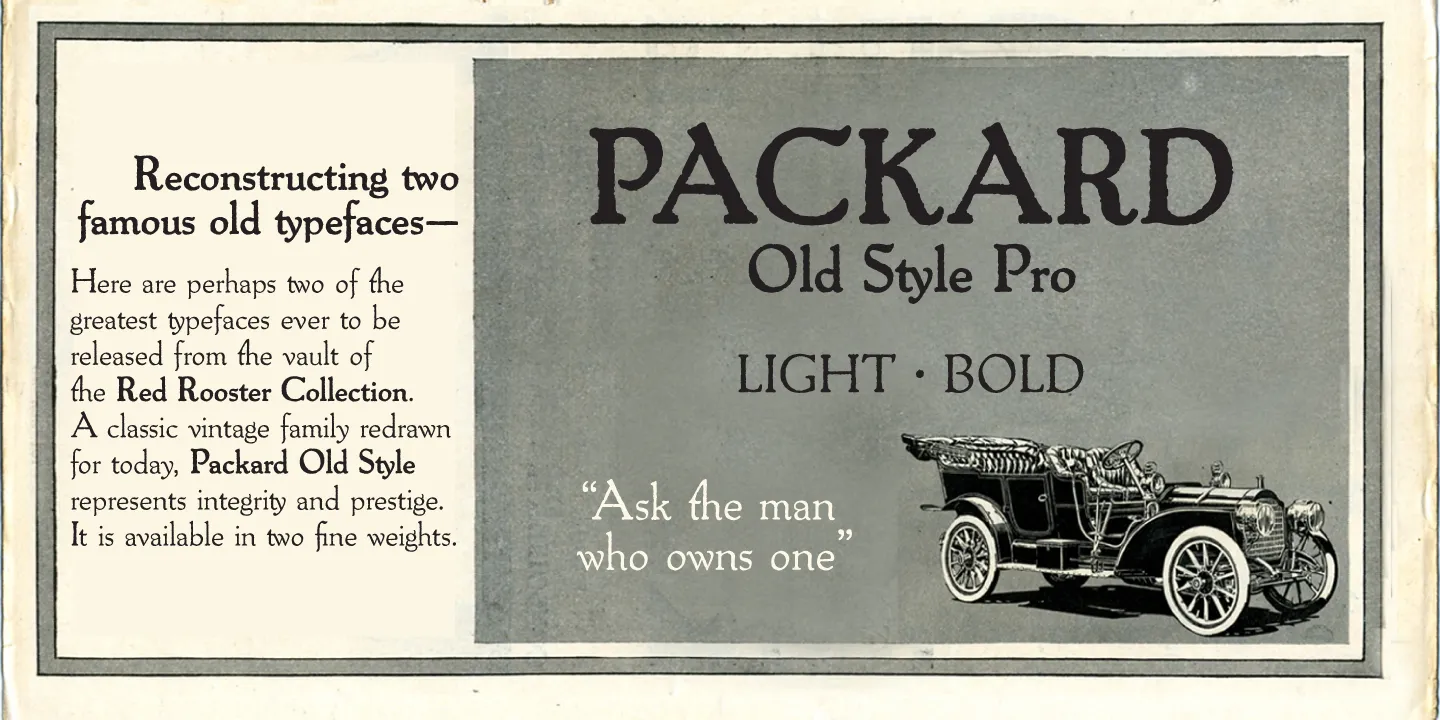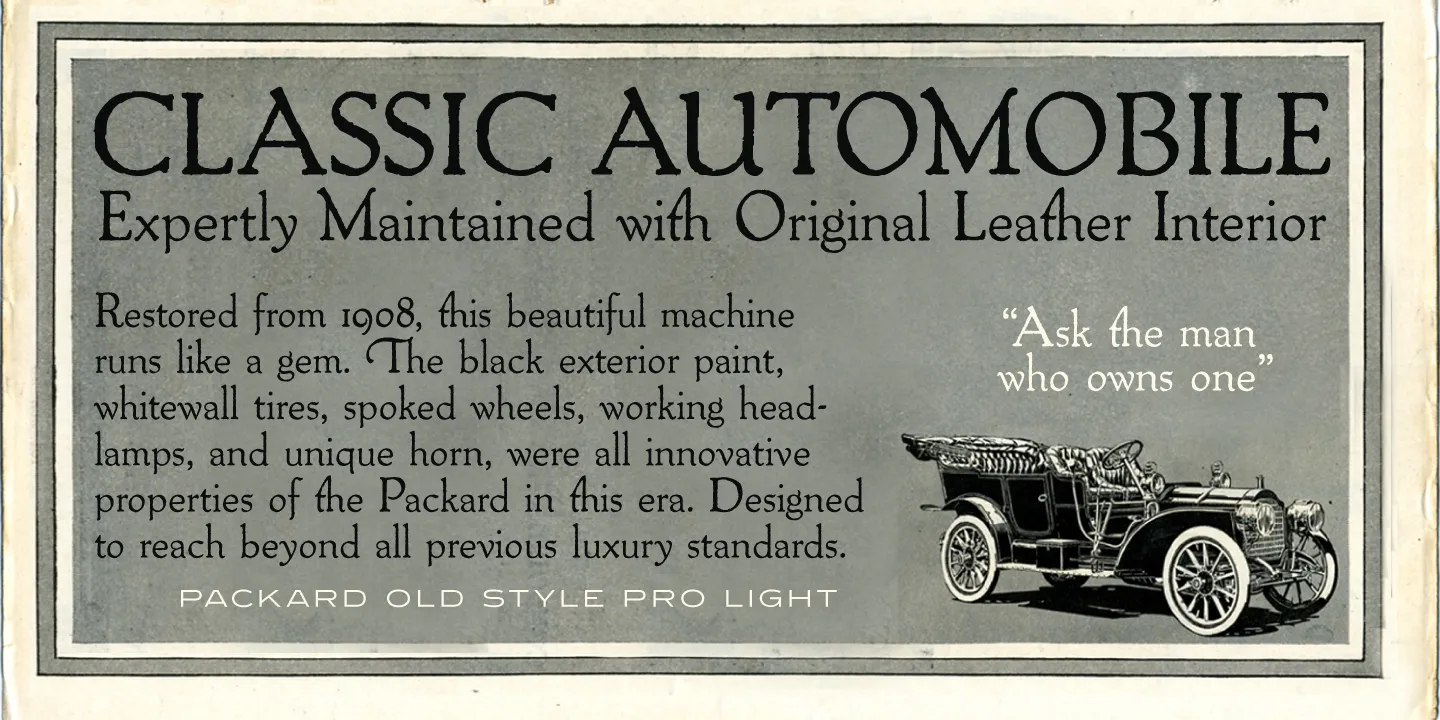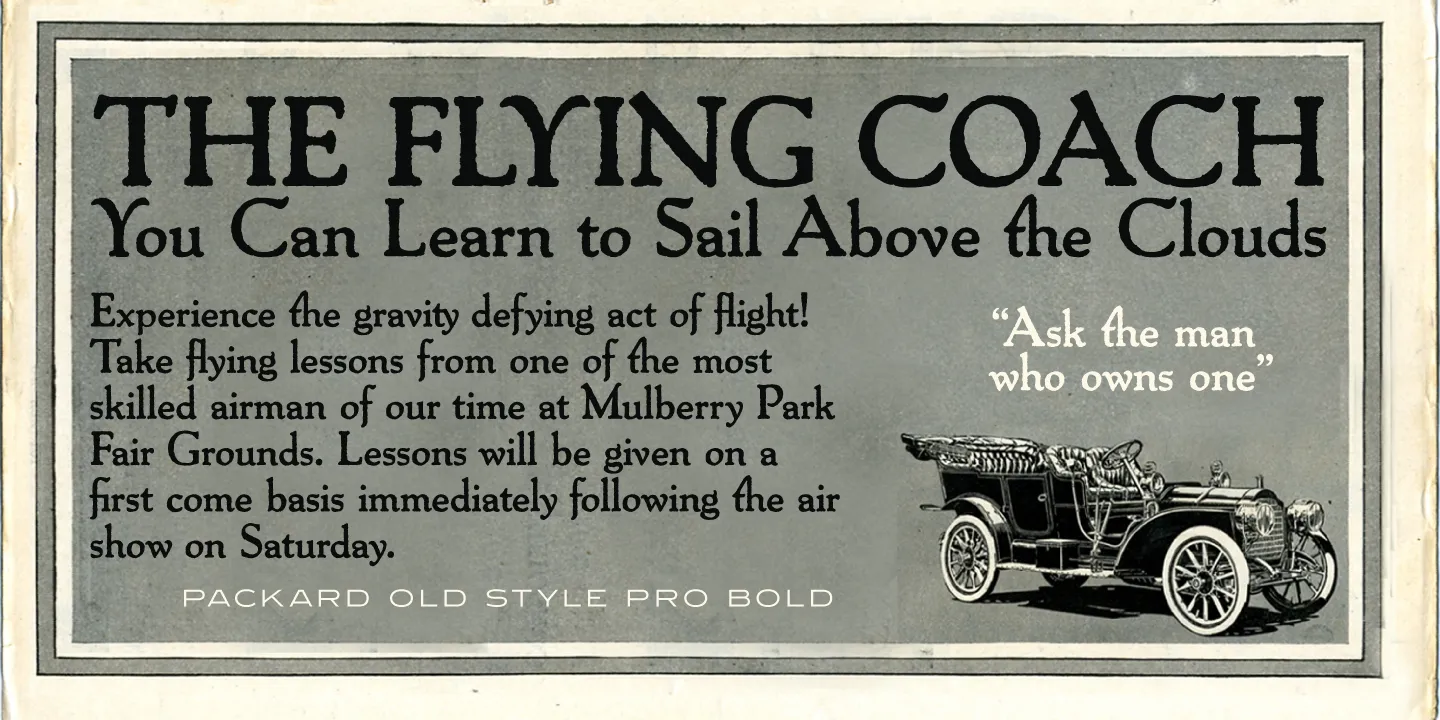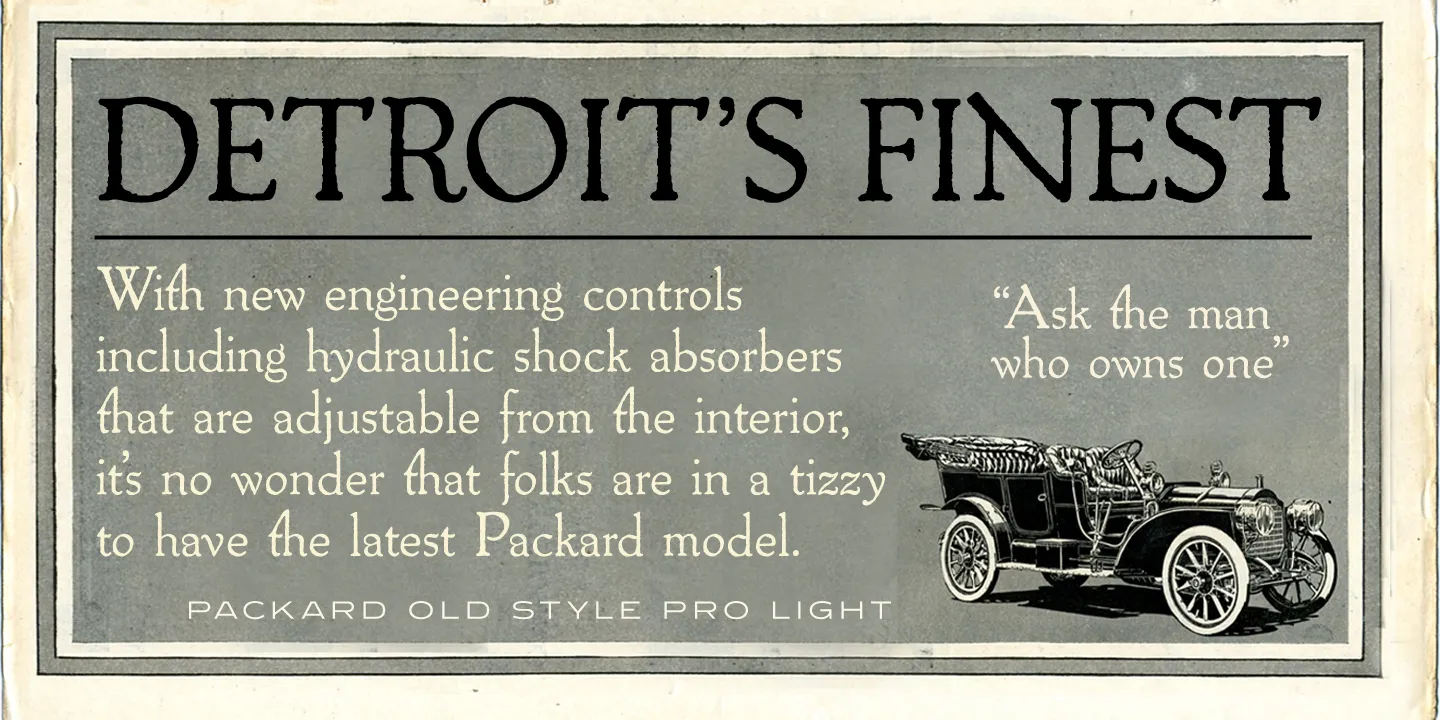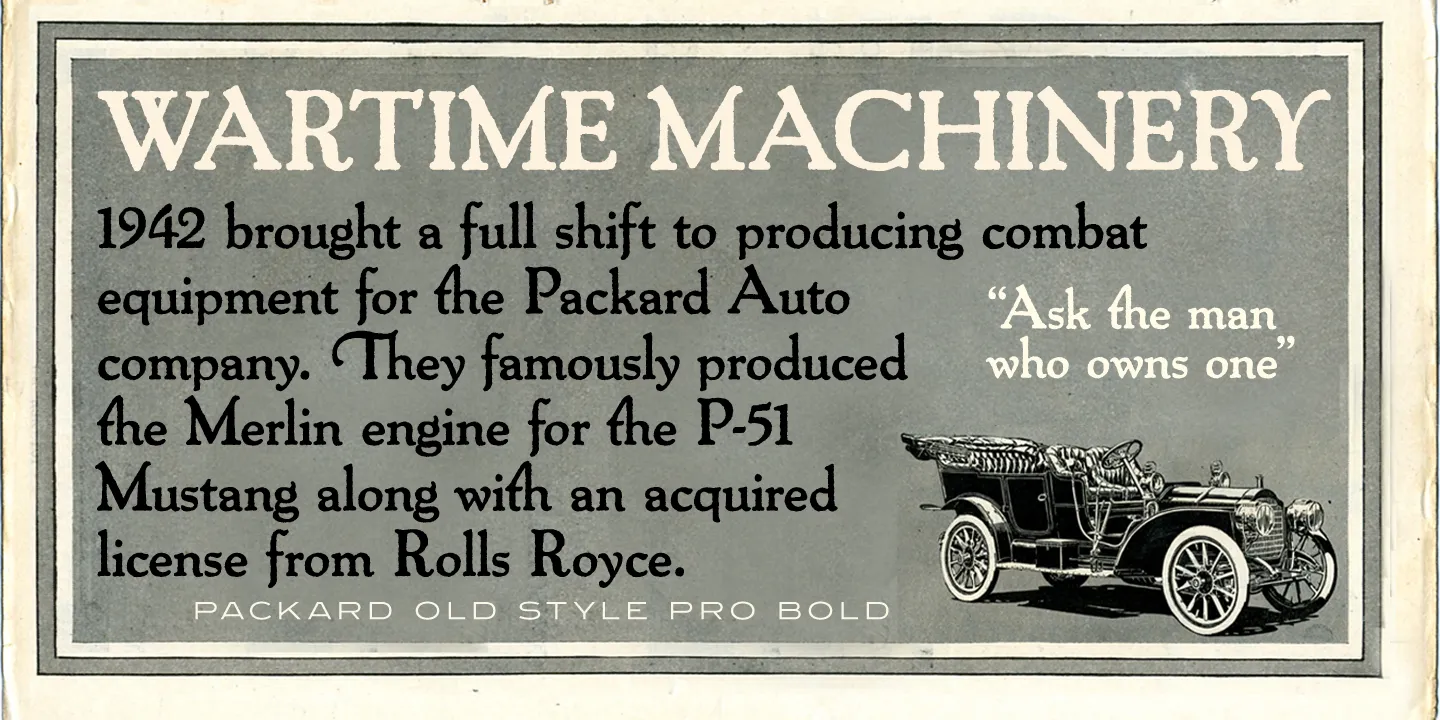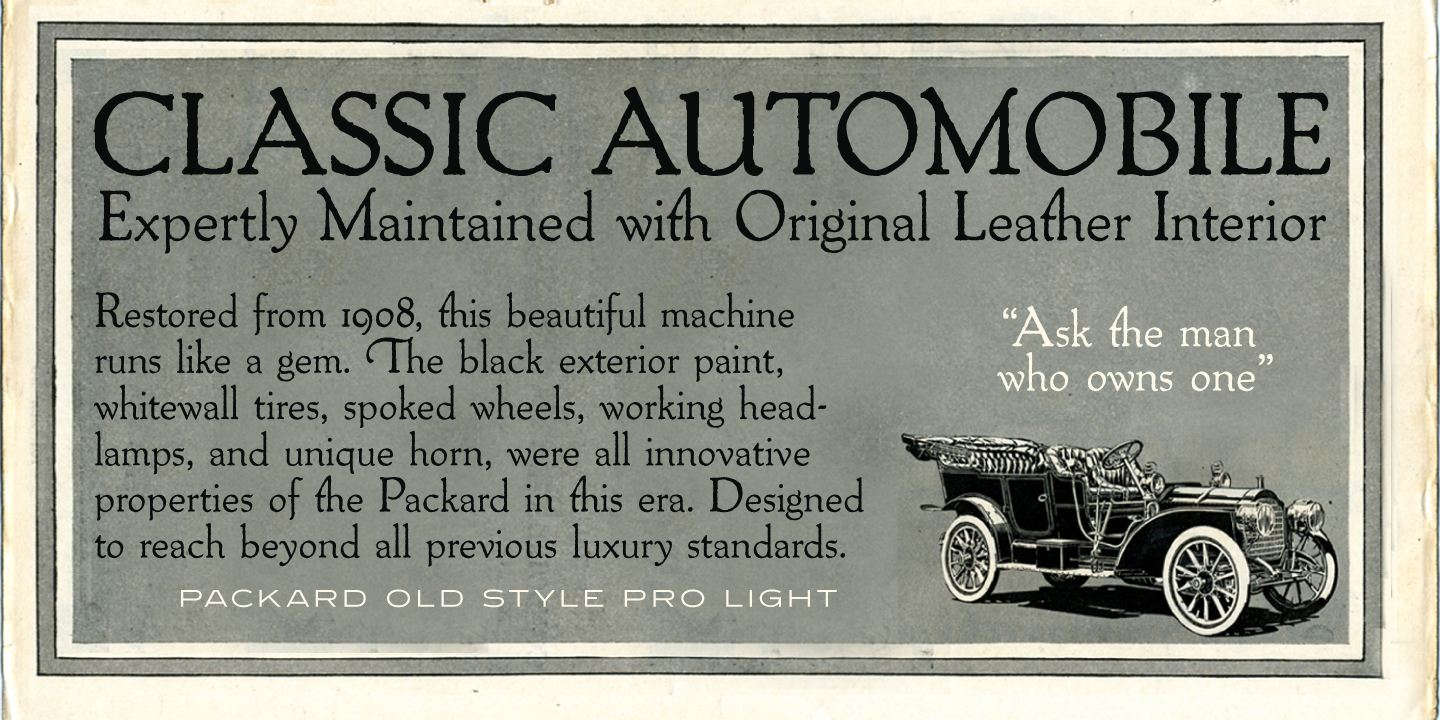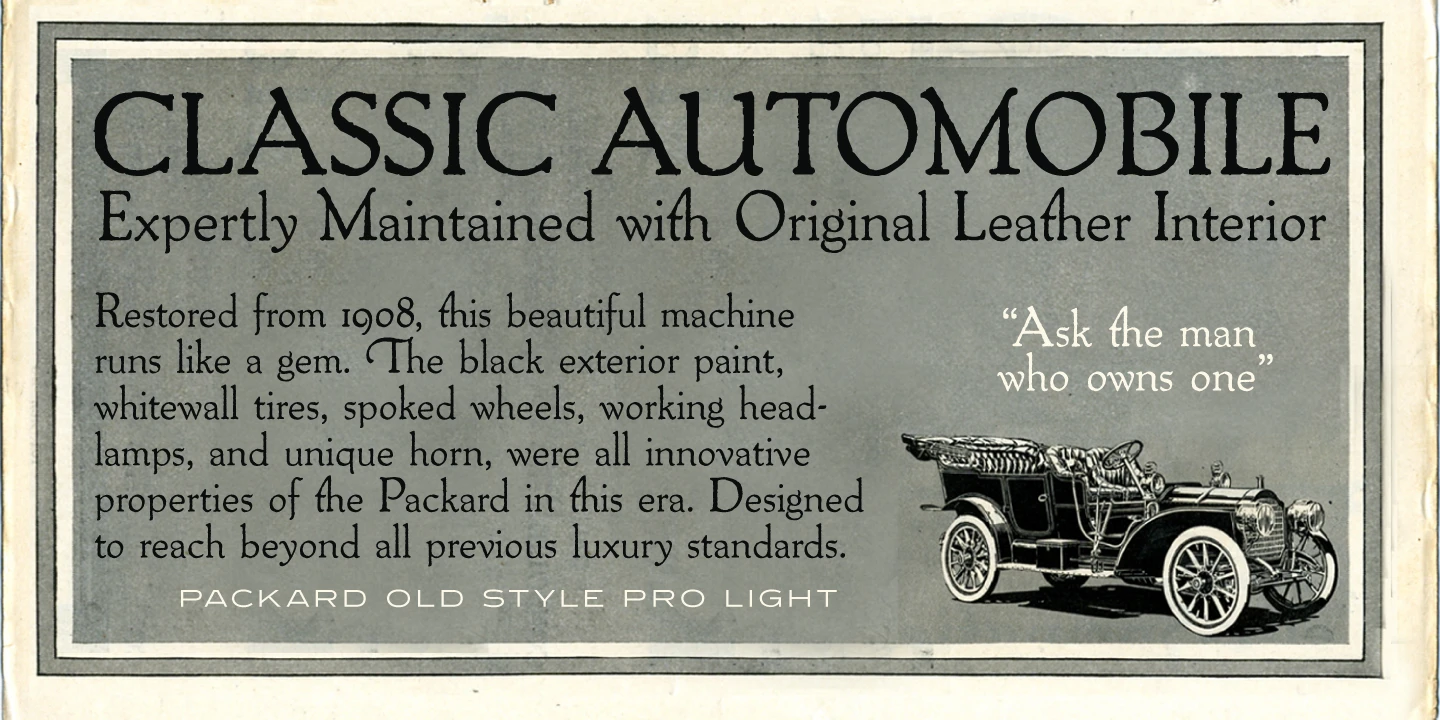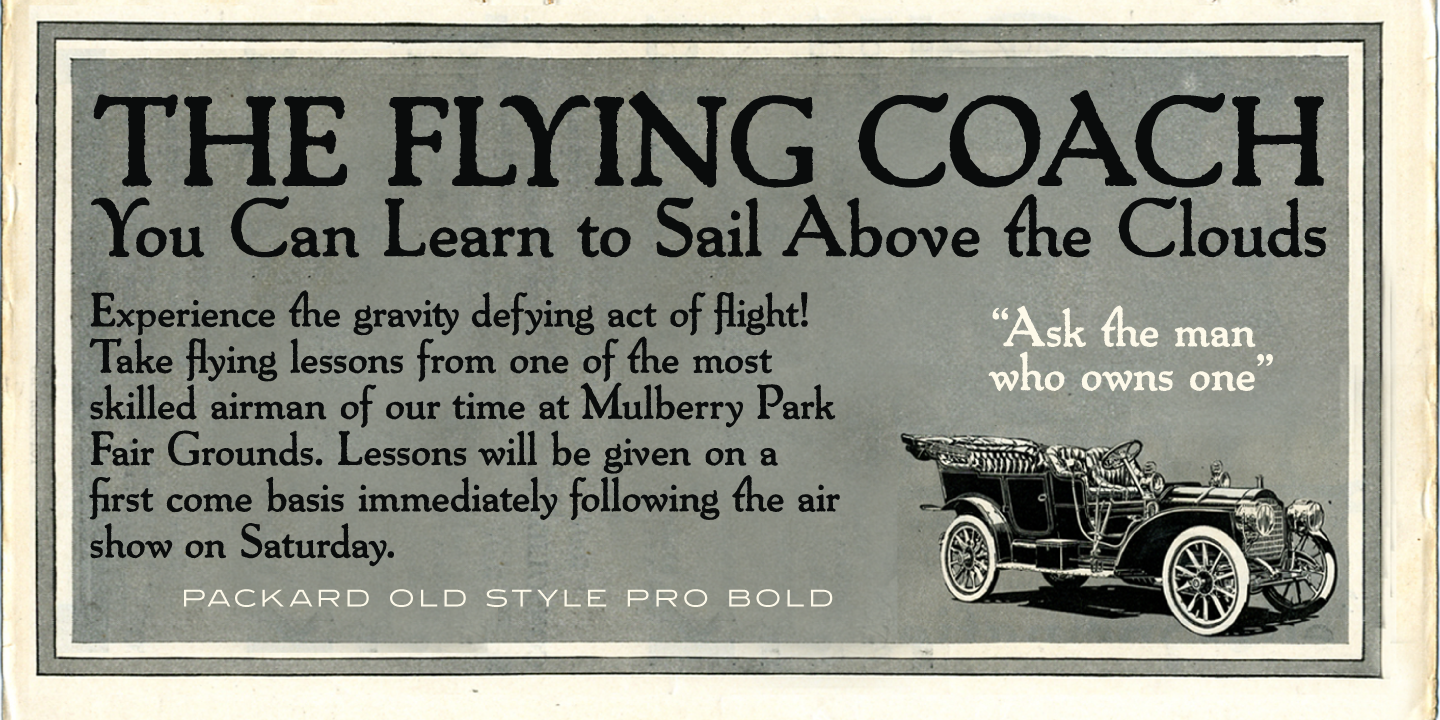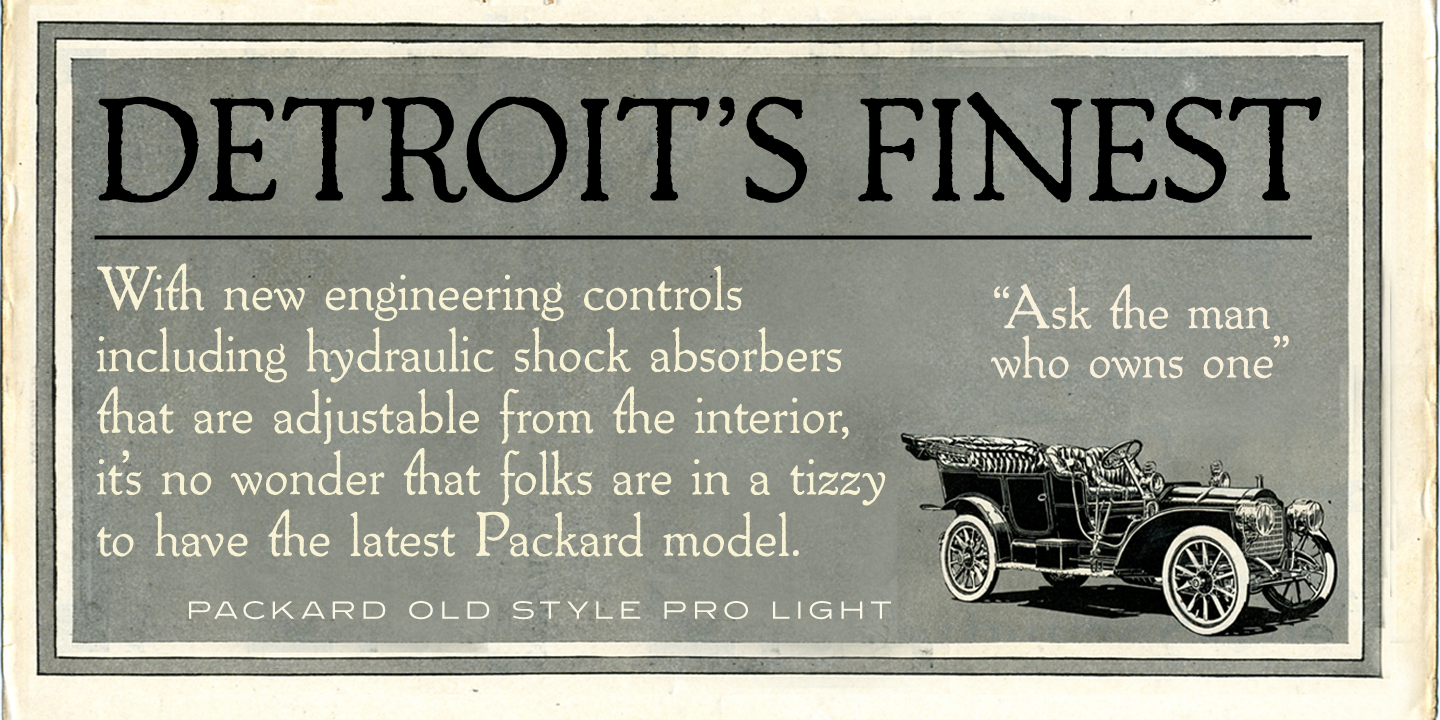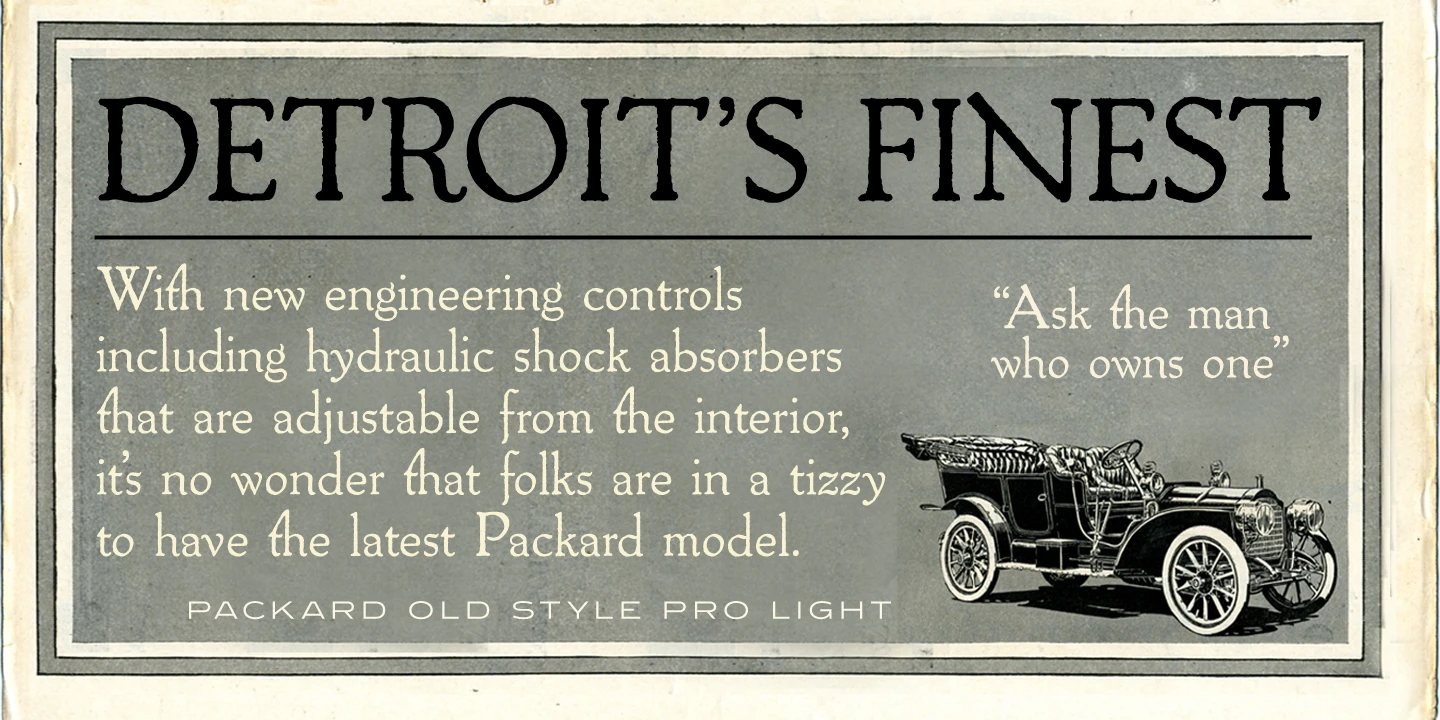
Packard Old Style Font Family
Packard Old Style is a serif font family that has an antique, rustic feel. It performs equally well in both display and text. In 1916, Oswald Cooper of American Type Founders (ATF) created Packard Old Style for the Packard Motor Company. Morris F. Benton, also of ATF, is credited with adapting the original weight and creating an additional bold weight. Steve Jackaman (ITF) and Ashley Muir created Packard Old Style in 2011, and developed a sister font family, Packard New Style. Several swashes were developed for added versatility and beauty.
OpenType Features
• Common Ligatures
• Fractions
• Ordinal Numerals
• Stylistic Alternates
• Stylistic Sets
• Subscript
• Superscript